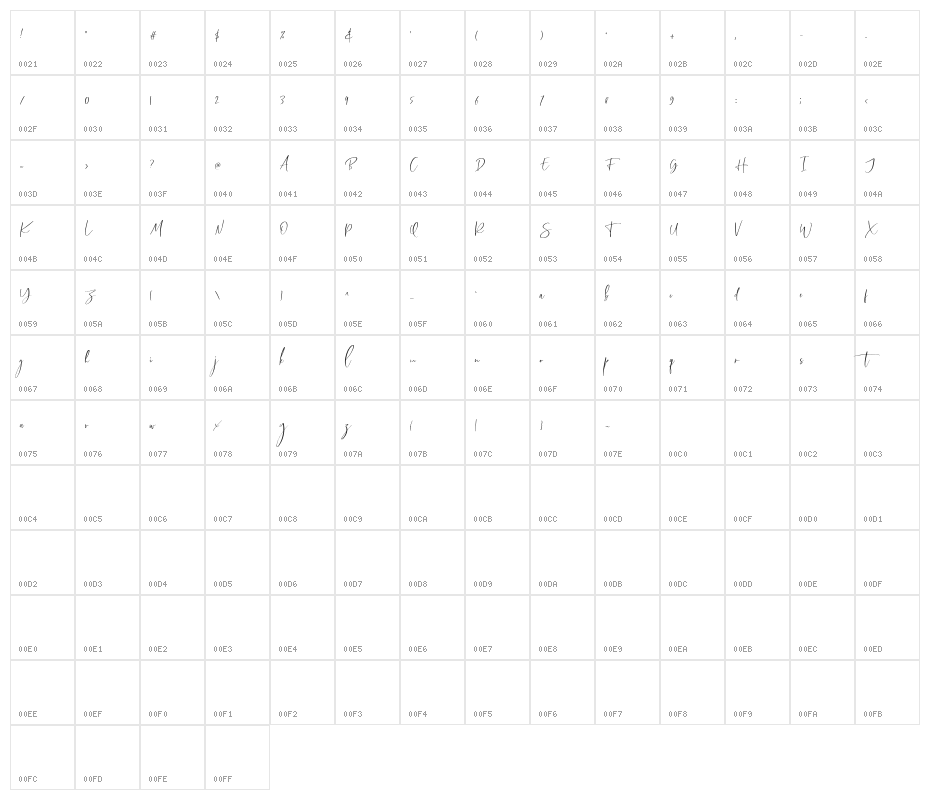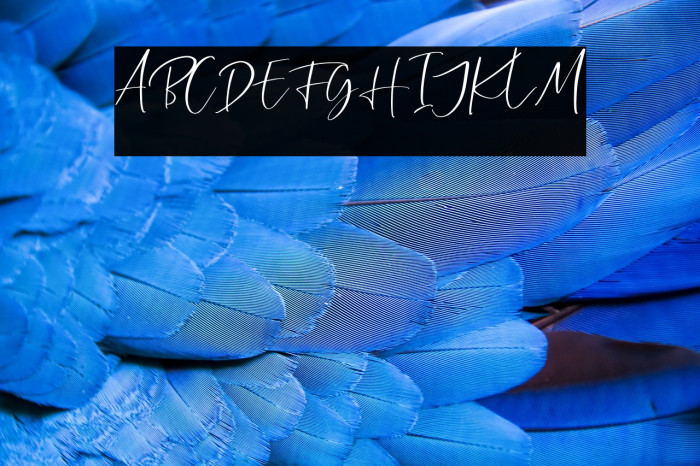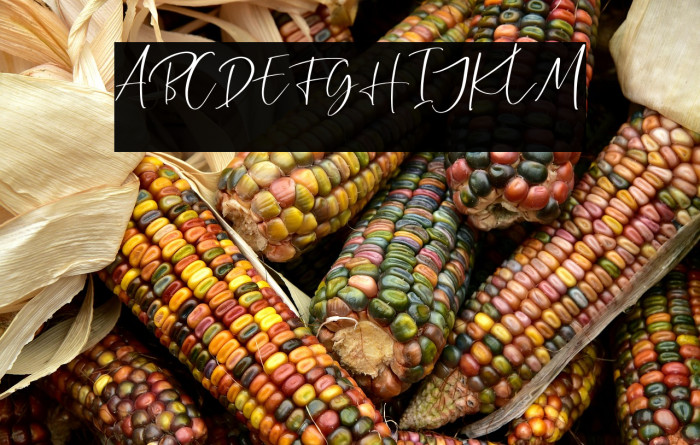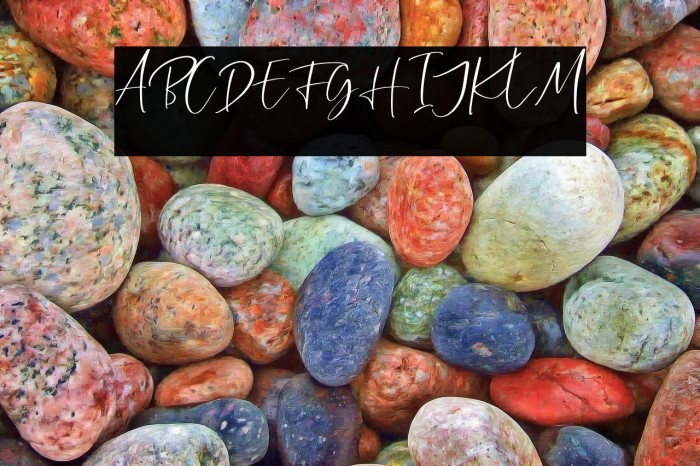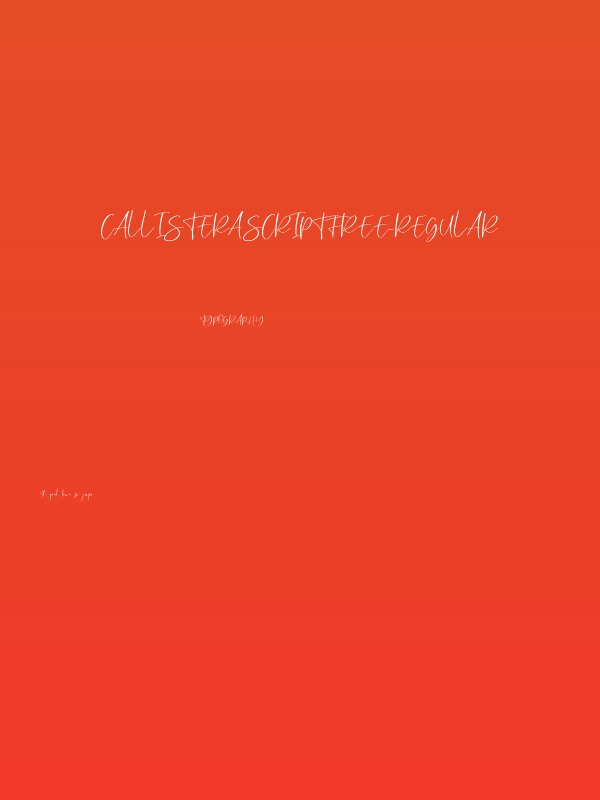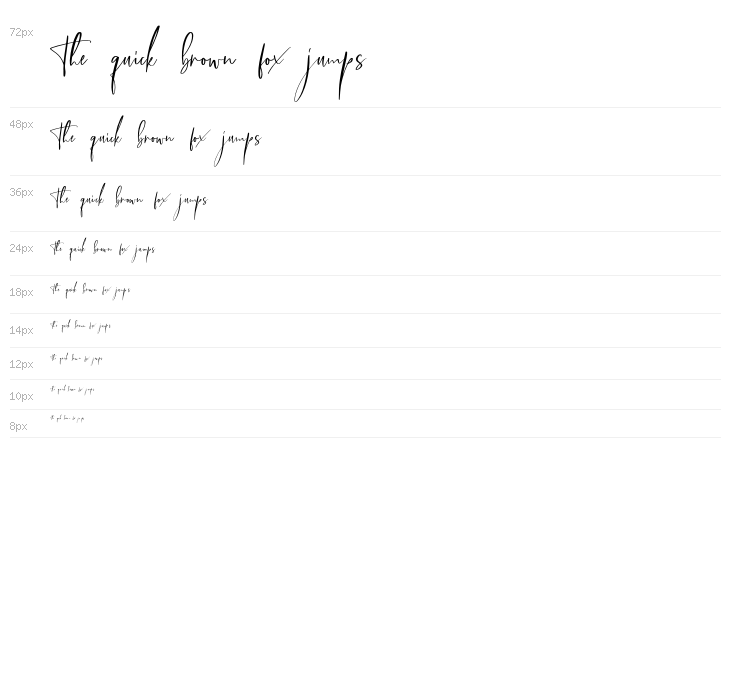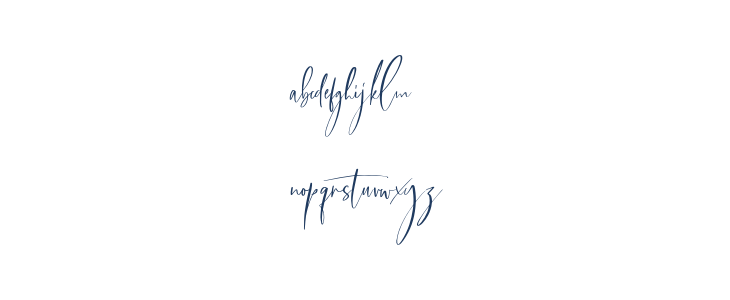
CallisteraScriptFree-Regular Font
CallisteraScriptFree-Regular Description
This font exhibits a flowing, cursive style with elegant, sweeping strokes that give it a handwritten appearance. The characters are connected in a fluid manner, creating a sense of movement and grace. The uppercase letters are tall and slender, while the lowercase letters maintain a consistent, flowing baseline. The numerals and special characters are designed to match the script's overall aesthetic, with delicate curves and loops. This font is ideal for projects that require a personal, artistic touch, such as invitations, greeting cards, and branding materials.
| Use Case | Logos, Headlines, Artistic projects |
| Proposed Projects | Ideal for invitations, greeting cards, branding materials, and artistic projects. |